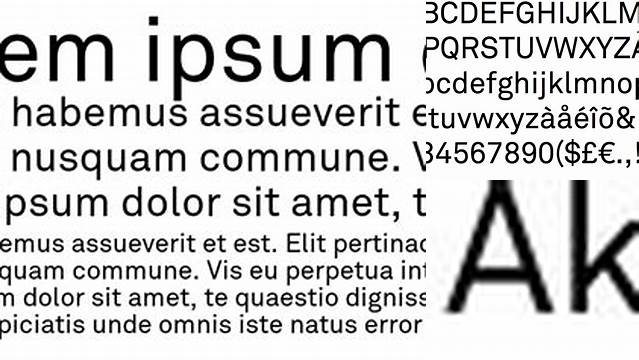
What is Akkurat LL Font?
Alright, first things first: what exactly is the Akkurat LL font? In a nutshell, it's a contemporary sans-serif typeface known for its clean lines, excellent readability, and overall versatility. It was designed by Laurenz Brunner and released by Lineto, a Swiss type foundry. The Akkurat LL font is characterized by its geometric construction, neutral appearance, and a sense of understated elegance. This makes it a fantastic choice for a wide range of applications, from website design and branding to editorial layouts and print materials. Think of it as the Swiss Army knife of fonts – it just works, everywhere! The original Akkurat font family has several weights and styles. Akkurat LL is one of the most popular and is available for a free download. The Akkurat LL font is celebrated for its clean and modern appearance. This makes it ideal for a wide range of design projects. This typeface is also known for its excellent legibility, even at small sizes, making it suitable for both body text and headlines. The Akkurat LL font free download is available on various websites, allowing designers to access this versatile font without any cost. When you're looking to create a professional and polished look, the Akkurat LL font is a go-to choice for many designers. It brings a certain sophistication and clarity to any design project, making your work stand out. Whether you are creating a new website, working on a brand identity, or designing print materials, the Akkurat LL font is a great choice. The Akkurat LL font's popularity stems from its modern design and its ability to make content readable. Whether it's a website, a brochure, or any other design project, the Akkurat LL font can elevate it to new heights. The font's simple design is also a key factor in its popularity. It does not contain any unnecessary features. This way, it can be used in any design environment. If you're looking to add a touch of modernity and readability to your designs, consider using the Akkurat LL font. This font is a versatile and reliable tool for any designer. It's like that perfect black dress or tailored suit – it just always looks good, no matter the occasion.
How to Use the Akkurat LL Font